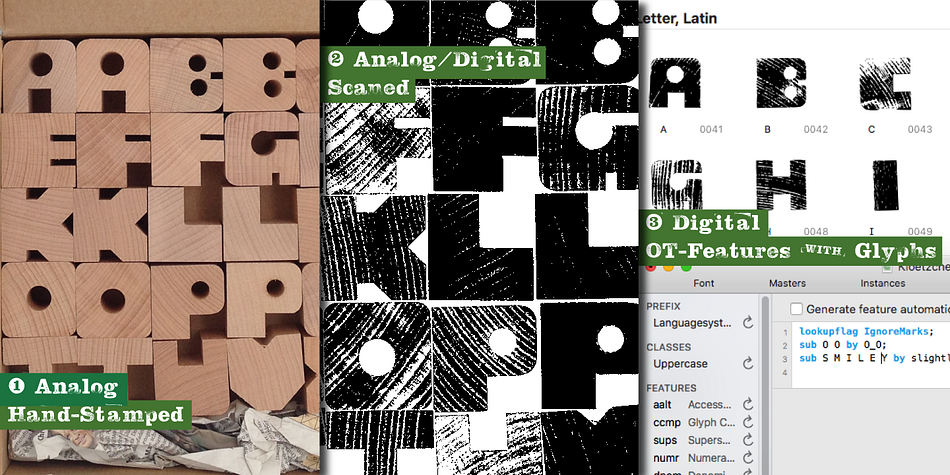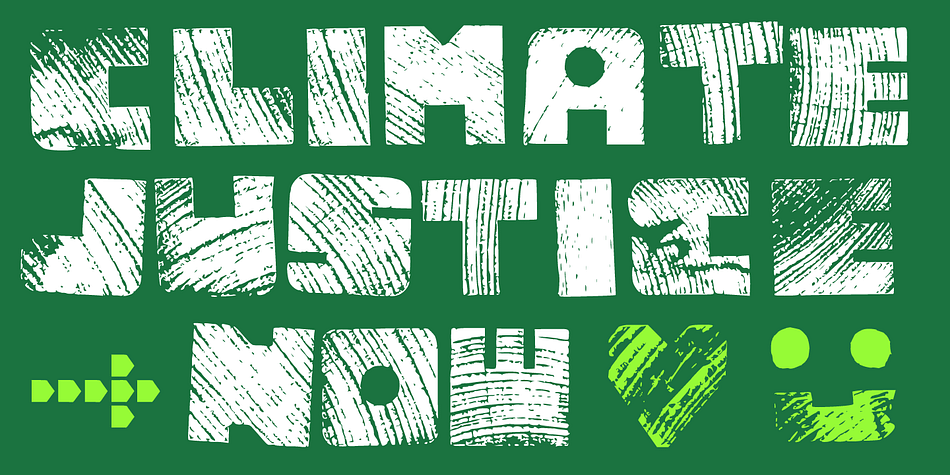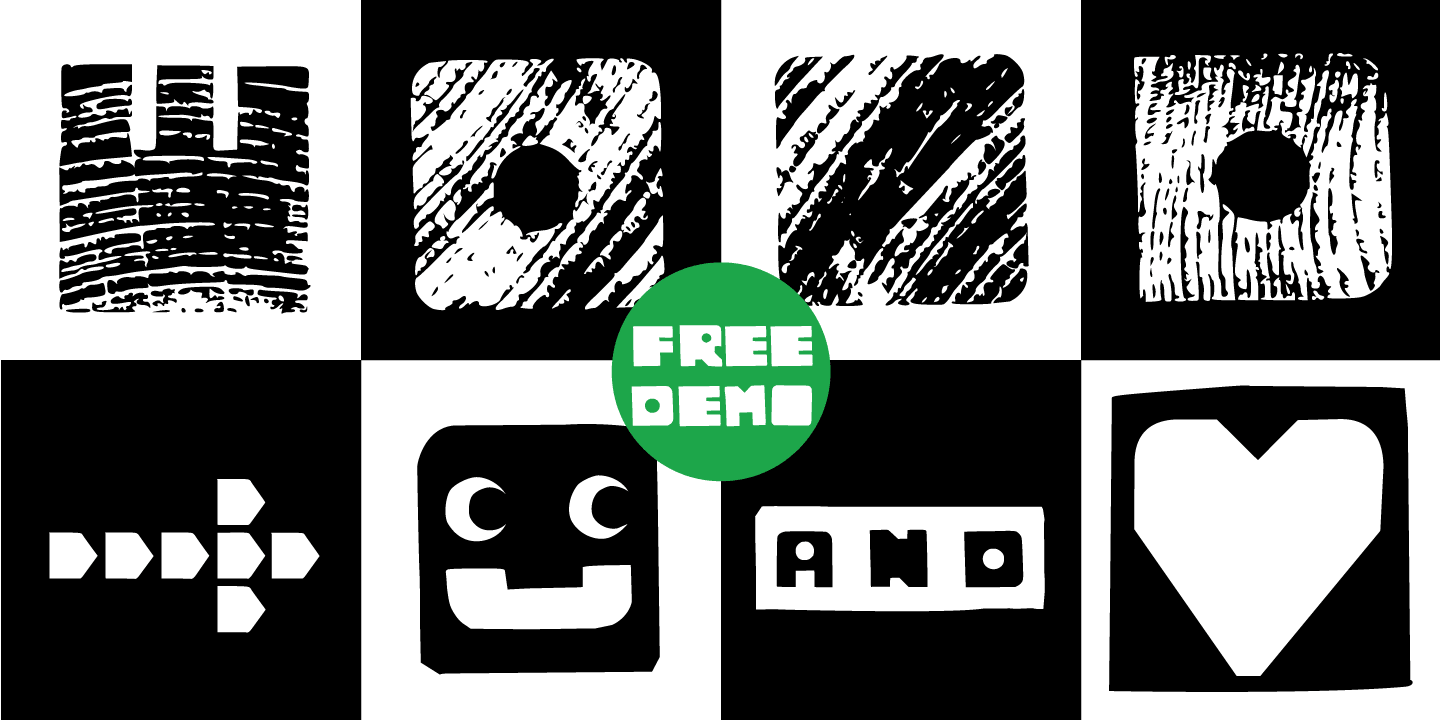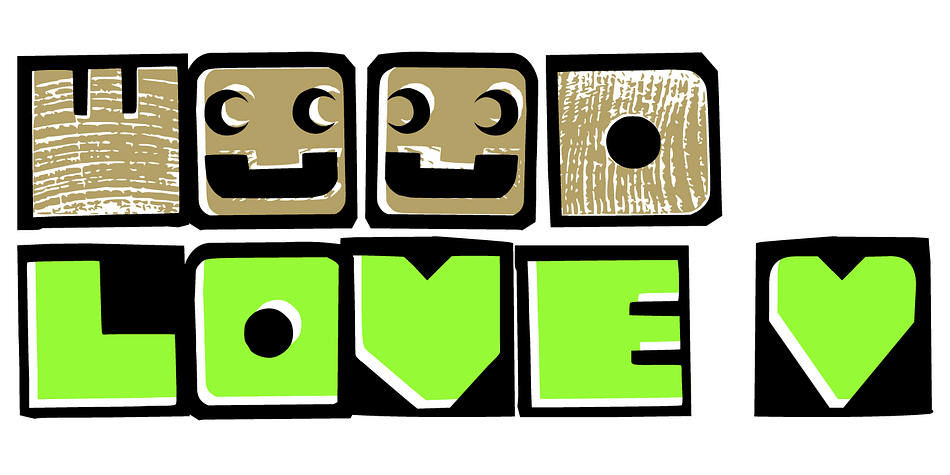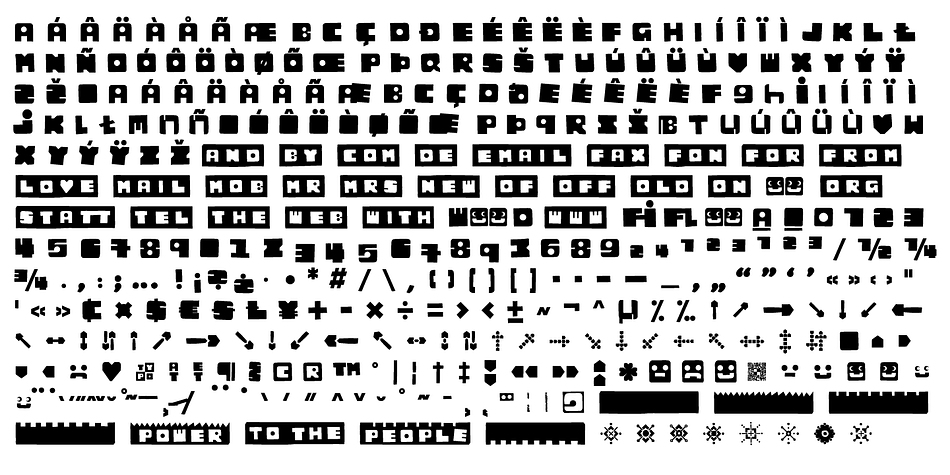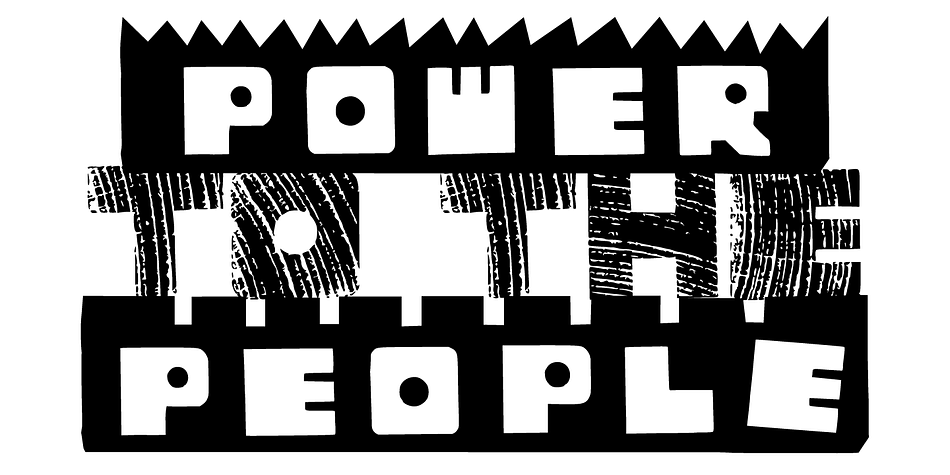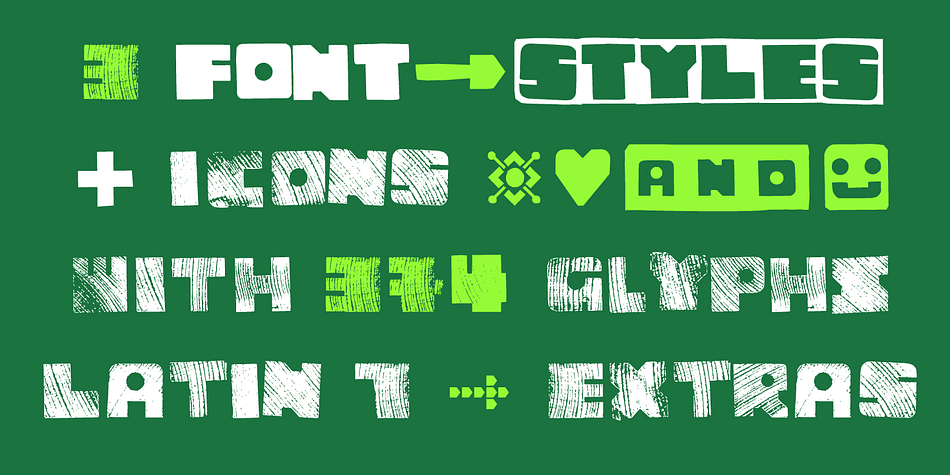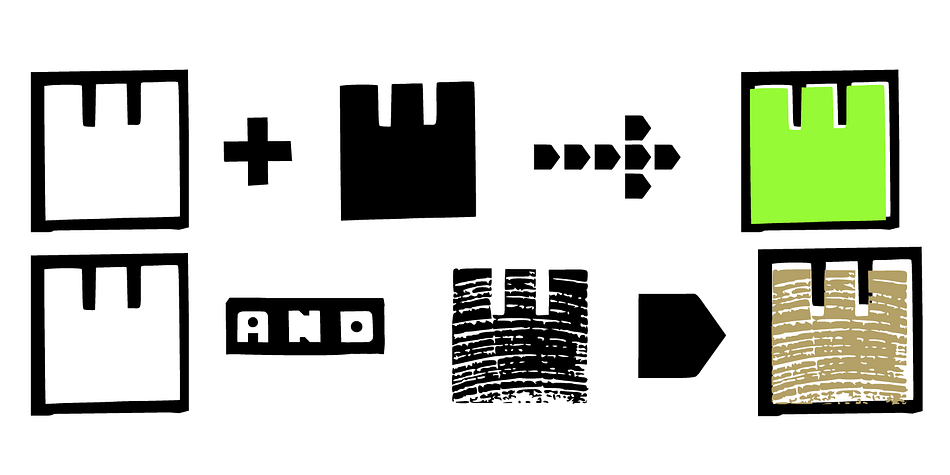
Designed by Manuel Viergutz and Peter Eckartz, Kloetzchen is a display font family. This typeface has seven styles and was published by Typo Graphic Design.
The typeface Klötzchen (german word for blocks) is designed from 2020 for the font foundry Typo Graphic Design by Manuel Viergutz | Typo Graphic Design × Peter Eckartz | kleinholzTYPO as a political statement #climatejustice
The display font based on the original wood letter from Peter Eckartz (kleinholzTYPO). The technic is called Reifendreherei from the Erzgebirge. Craft Tools like Hobel and Fräsmaschine. The idea based from Gert Schaaf (Spielzeugproduzent in Wittlich, 1970s).
The font started from 41 wood letters (analog) and was finally digitalize and extended to 374 glyphs (digital).
3 font-styles (Wood, Clean, Impact) + 1 icon-style with 374 glyphs (Adobe Latin 1) incl. 100+ decorative extras like icons, arrows, dingbats, emojis, symbols, geometric shapes (type the word #LOVE for ❤ or #SMILE for ☺ as OpenType-Feature dlig) and stylistic alternates (7 stylistic sets).
For use in logos, magazines, posters, advertisement plus as webfont for decorative headlines. The font works best for display size.